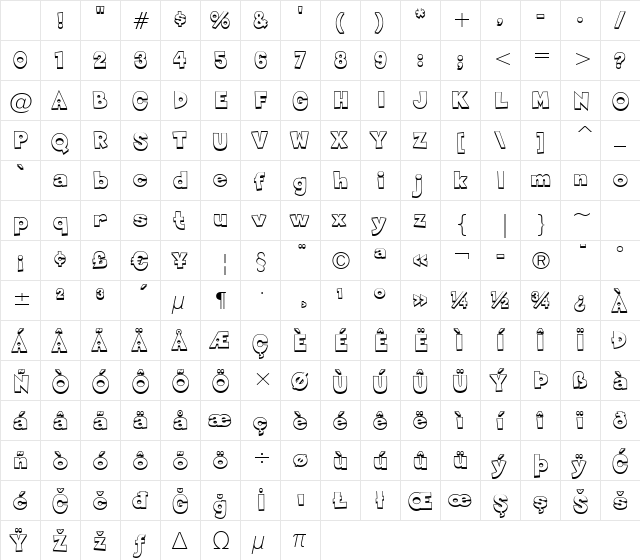
Sneakerhead BTN Shadow Regular
Sneakerhead BTN Shadow Family
Design Context for Sneakerhead BTN Shadow
Sneakerhead BTN Shadow is built around its visual character rather than neutral utility - its distinctive forms are designed to make an impression at display sizes.